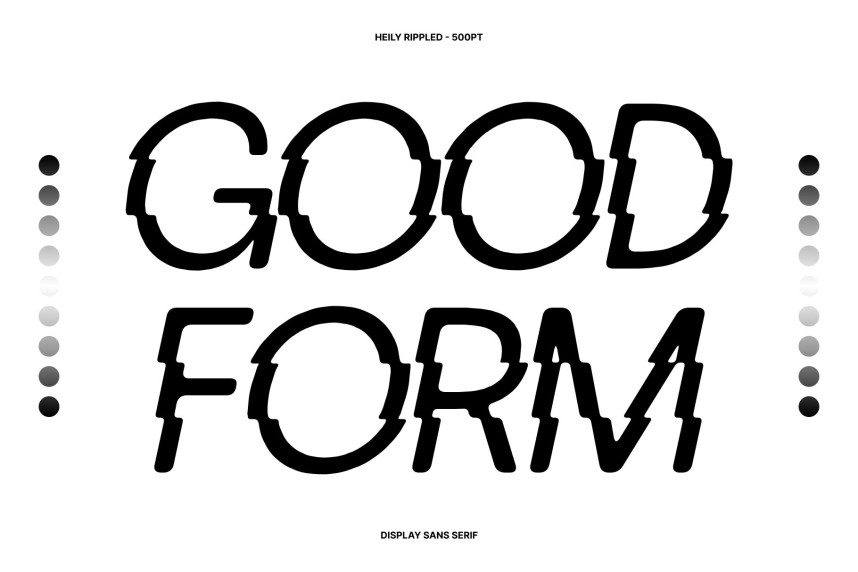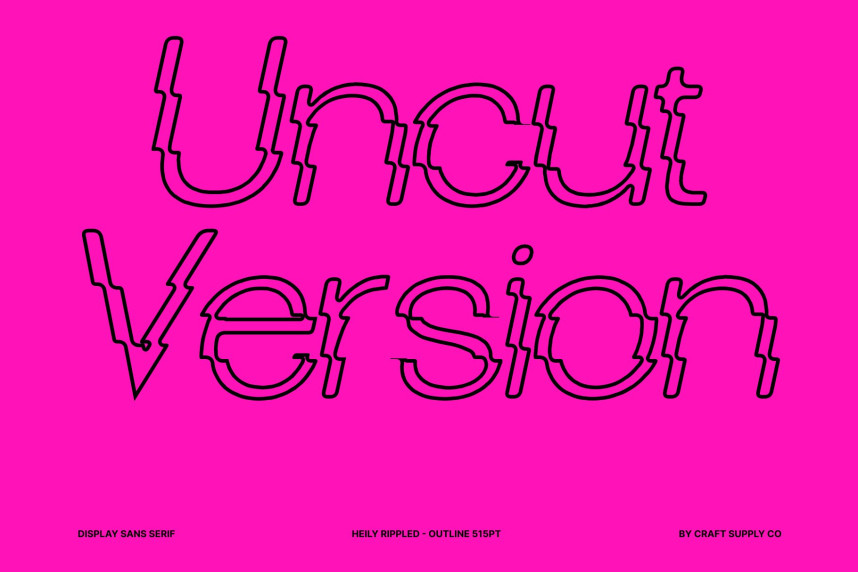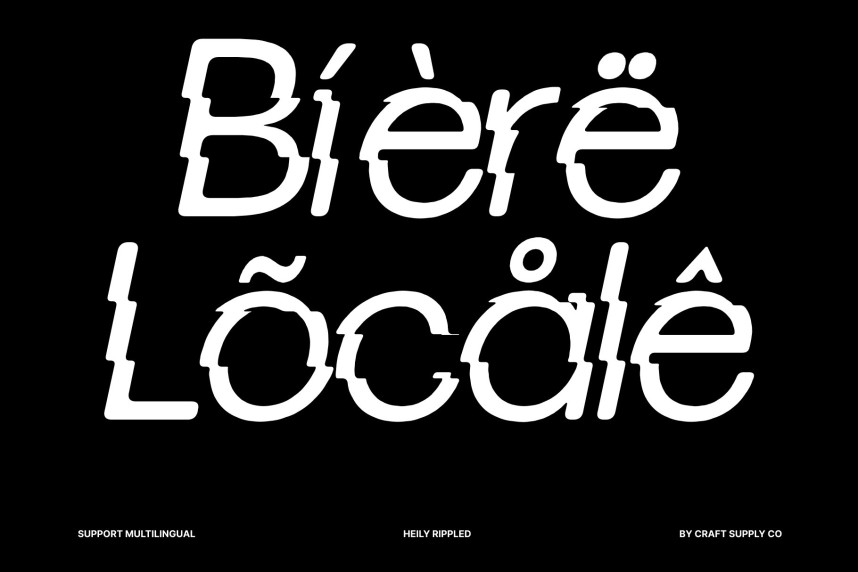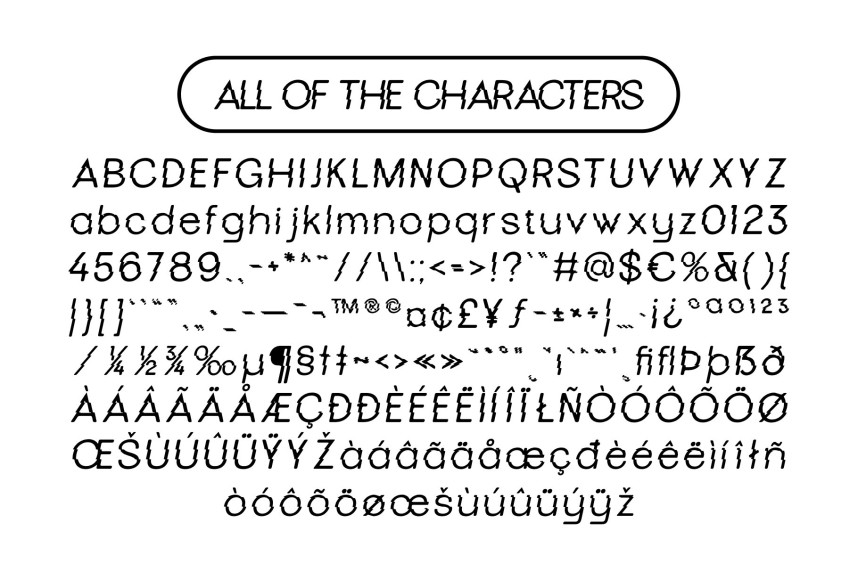
Heily Rippled Font
Heily Rippled Font – Modern Grotesque Sans Serif: Where Swiss Precision Meets Fluid Wave Motion
Clean Geometric Structure with Contemporary Clarity
This is a modern grotesque sans serif inspired by the timeless principles of Swiss design. Featuring clean geometric forms, balanced proportions, and exceptional readability, it delivers a refined, contemporary appearance that feels minimal, confident, and highly versatile. Its structured construction provides a solid foundation while allowing expressive visual effects to take center stage.